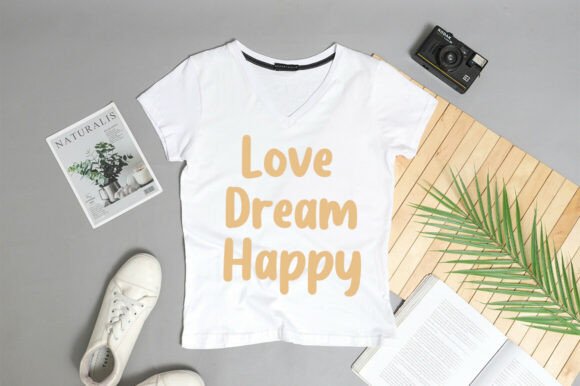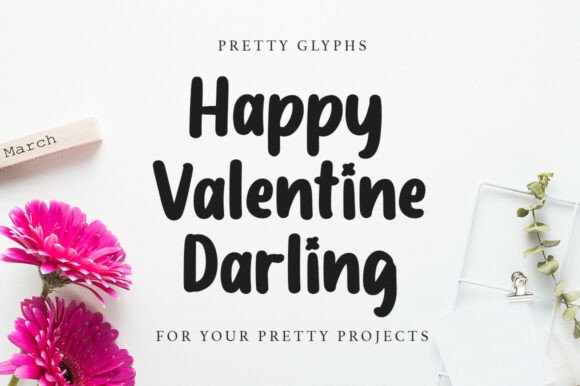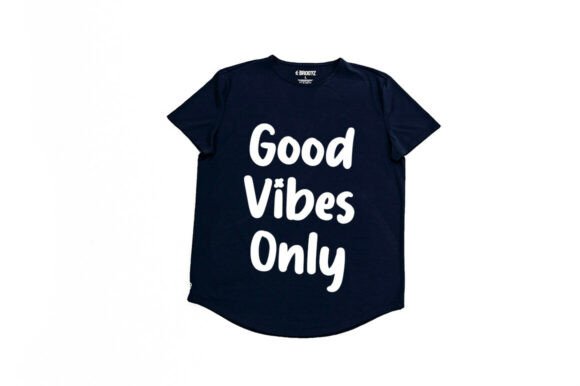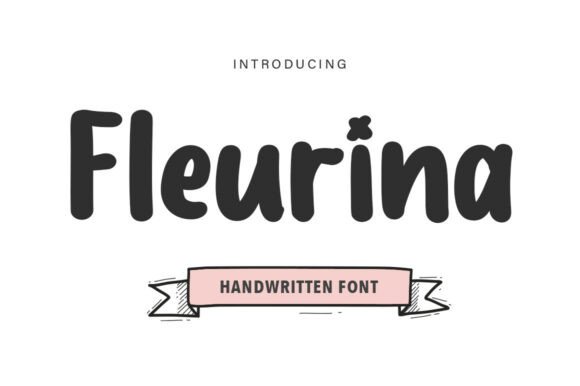
Introducing Fleurina Font: The Perfect Blend of Cheerfulness and Professionalism
Are you looking for a font that can add a touch of playfulness and youthful energy to your design projects? Look no further than Fleurina Font, a delightful handwritten display font that is sure to brighten up your design canvas. With its bold, softly rounded letterforms and clean, high-impact vertical structure, Fleurina is the perfect choice for designers and crafters who want to create visually appealing and engaging designs.
The Unique Charm of Fleurina Font
So, what sets Fleurina Font apart from other fonts? The answer lies in its signature charm – the whimsical, flower-like star burst substitution serving as the dot for the lowercase āiā. This playful detail perfectly anchors the sunny personality of Fleurina, making it an exceptional choice for designs that require a sense of fun and approachability. Whether you’re working on children’s book titles, preschool educational materials, organic food labels, or joyful greeting cards, Fleurina Font is sure to deliver a sense of professional clarity mixed with artisanal fun.
Design Features of Fleurina Font
Fleurina Font boasts a range of design features that make it an attractive choice for designers and crafters. Some of its key features include:
- Bold and Softly Rounded Letterforms: Fleurina’s letterforms are bold and softly rounded, giving them a clean and high-impact appearance that is sure to grab attention.
- Clean and High-Impact Vertical Structure: The font’s vertical structure is clean and high-impact, making it perfect for designs that require a sense of professionalism and clarity.
- Whimsical Star Burst Substitution: The whimsical star burst substitution serving as the dot for the lowercase āiā is a playful detail that adds a touch of fun and personality to the font.
Use Cases for Fleurina Font
Fleurina Font is a versatile font that can be used in a variety of design projects. Some of its ideal use cases include:
- Children’s Book Titles: Fleurina Font is perfect for children’s book titles, with its playful and youthful energy sure to appeal to young readers.
- Preschool Educational Materials: The font’s clean and high-impact design makes it an excellent choice for preschool educational materials, such as worksheets and activity sheets.
- Organic Food Labels: Fleurina Font’s natural and playful feel makes it a great choice for organic food labels, adding a touch of personality to your brand.
- Joyful Greeting Cards: The font’s whimsical design makes it perfect for joyful greeting cards, adding a touch of fun and playfulness to your messages.
Why Choose Fleurina Font?
So, why choose Fleurina Font for your design projects? Here are just a few reasons:
- Unique and Playful Design: Fleurina Font’s unique and playful design sets it apart from other fonts, making it perfect for designers and crafters who want to add a touch of personality to their designs.
- Professional Clarity: Despite its playful feel, Fleurina Font delivers a sense of professional clarity, making it perfect for designs that require a sense of sophistication and elegance.
- Artisanal Fun: The font’s artisanal feel adds a touch of fun and whimsy to your designs, making them feel approachable and sweet.
In conclusion, Fleurina Font is a delightful handwritten display font that is sure to brighten up your design canvas. With its bold, softly rounded letterforms, clean and high-impact vertical structure, and whimsical star burst substitution, Fleurina is the perfect choice for designers and crafters who want to create visually appealing and engaging designs. Whether you’re working on children’s book titles, preschool educational materials, organic food labels, or joyful greeting cards, Fleurina Font is sure to deliver a sense of professional clarity mixed with artisanal fun.